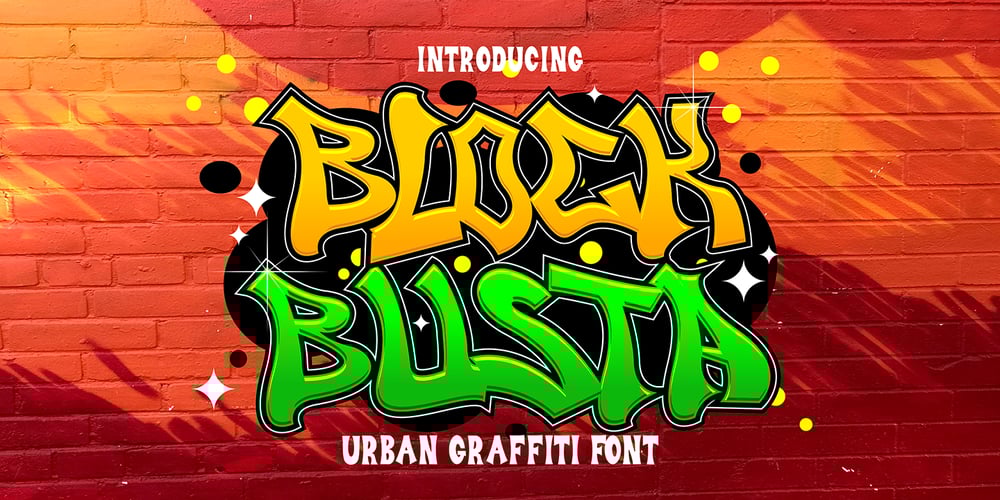
Block busta Font Family was designed by Sipanji and published by Sipanji21. Block busta contains 1 styles and family package options. “Block Busta” is an urban graffiti font characterized by sharp edges and a bold look. Ideal for music posters, apparel designs, shirts, and streetwear, this font brings a touch of edginess to your projects. The unique style of “Block Busta ” makes it the perfect choice for death metal or urban graffiti themes. Whether you want to create a strong and powerful statement or simply add a touch of attitude to your designs “Block Busta ” is the font for you.